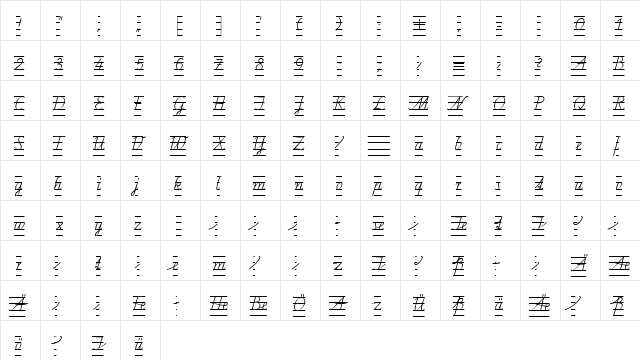
SchulschriftCL4 Regular Font Preview
SchulschriftCL4 Regular
SchulschriftCL4 Regular Font Details
Design Context for SchulschriftCL4 Typeface
SchulschriftCL4 takes a measured approach to typography — its balanced proportions and neutral character make it a reliable workhorse for both digital and print work.